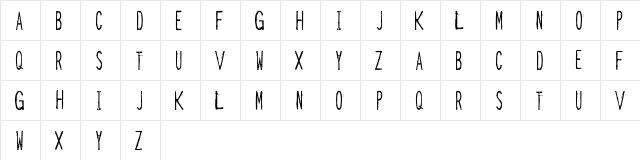
dubbed Regular
Design Context for dubbed Typeface
dubbed is a composed and adaptable typeface that performs quietly and consistently across a wide range of design contexts.